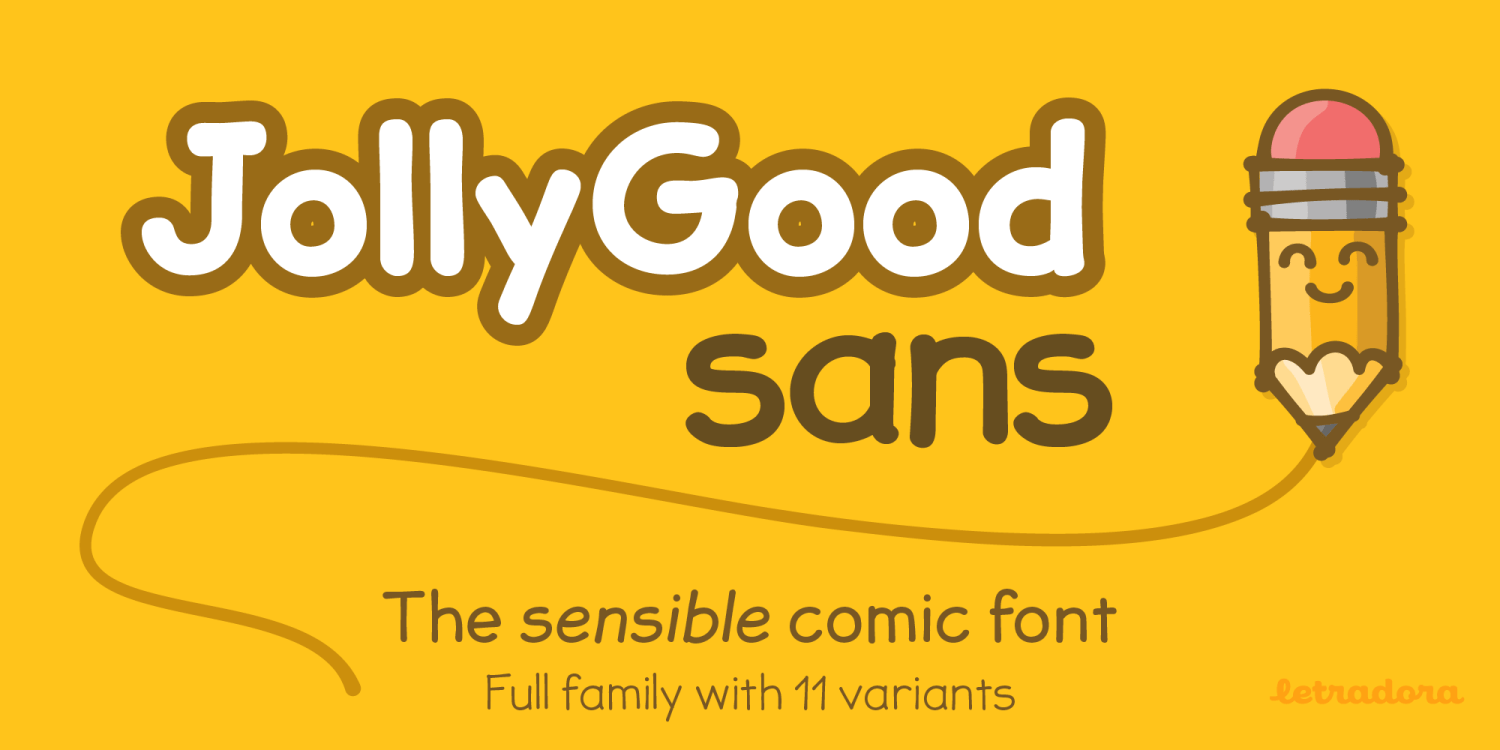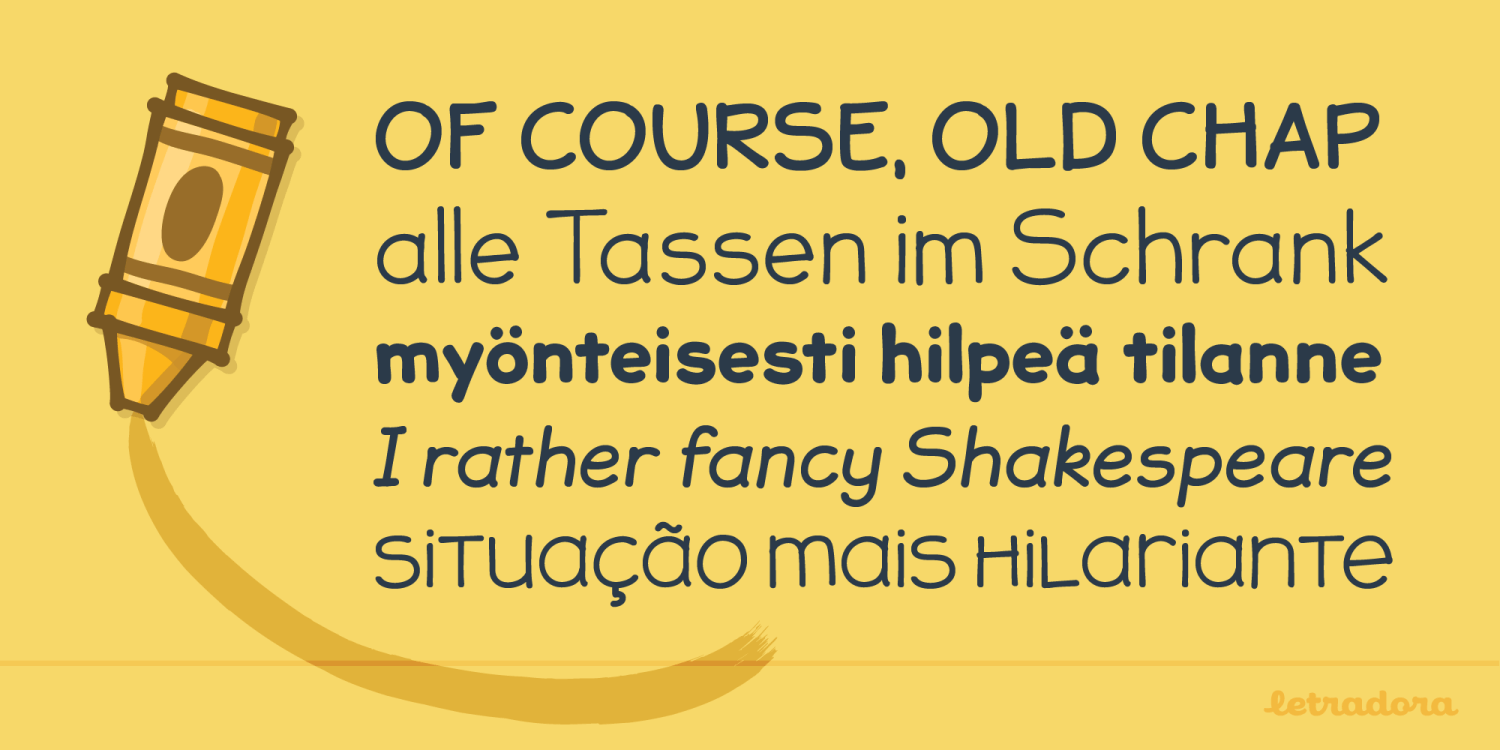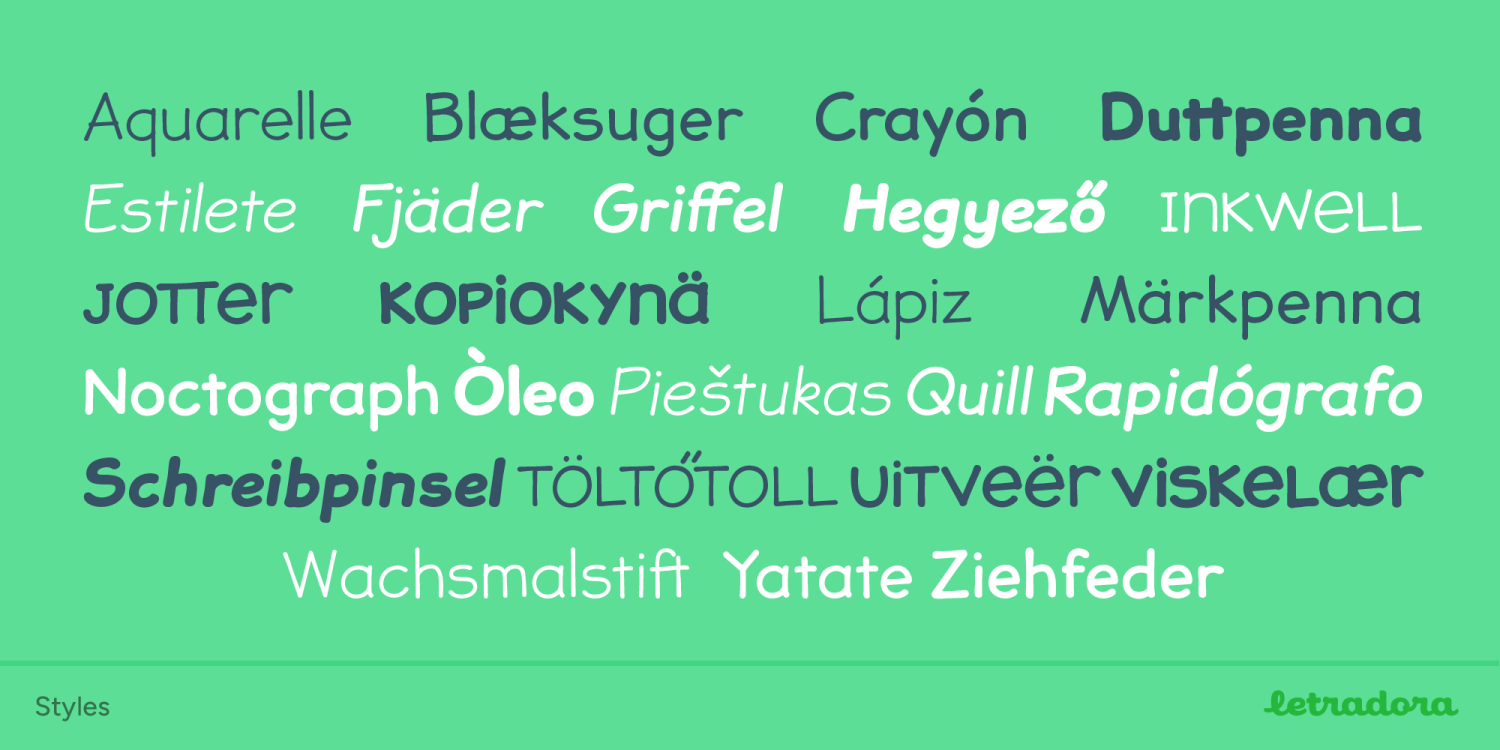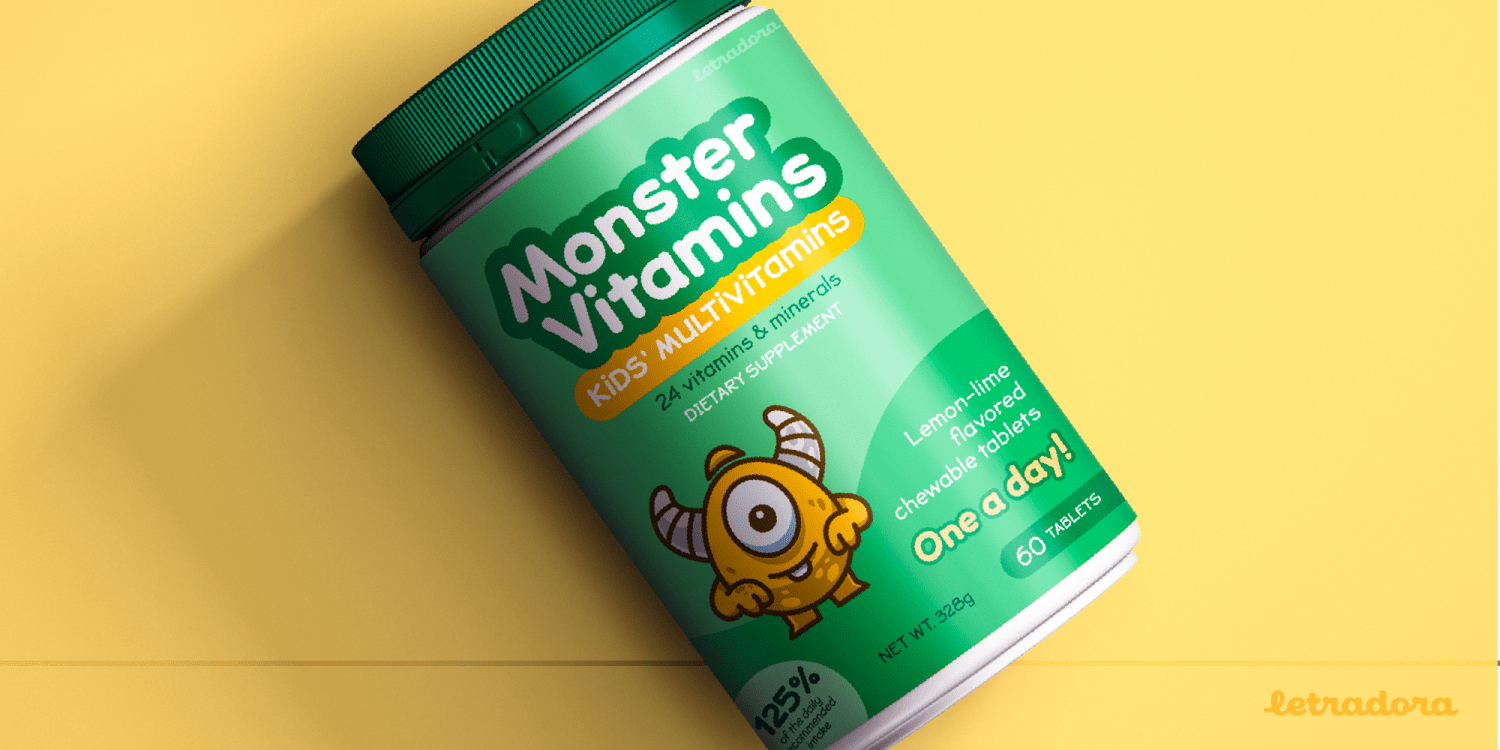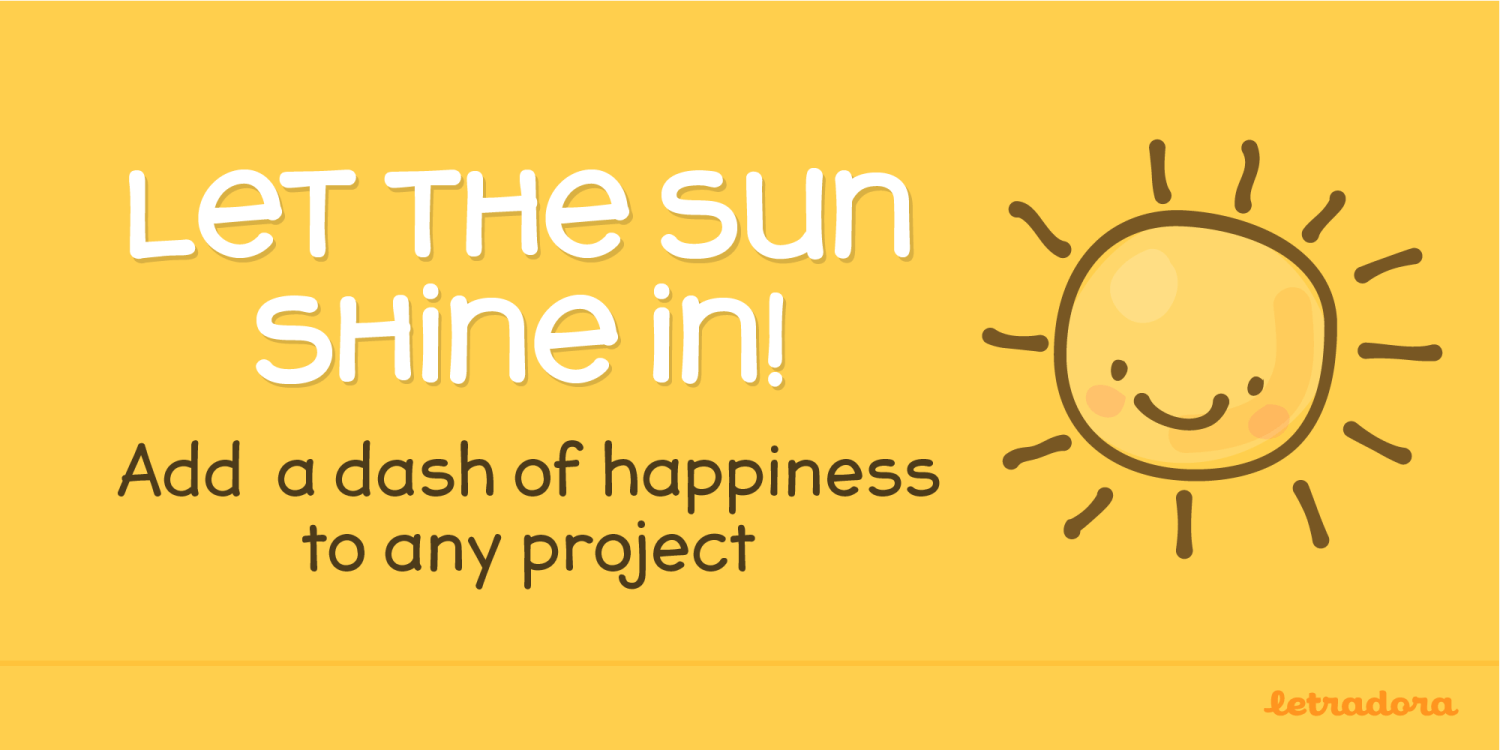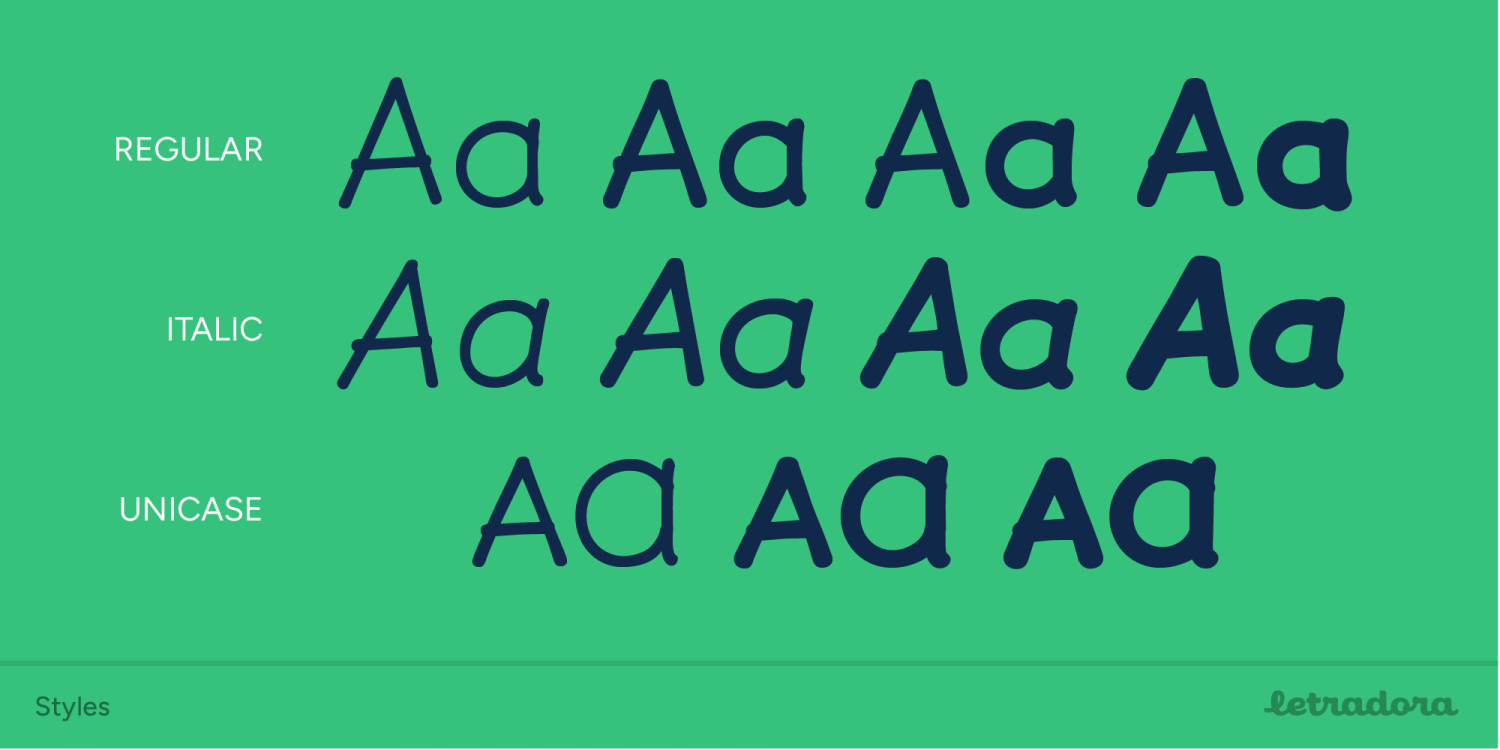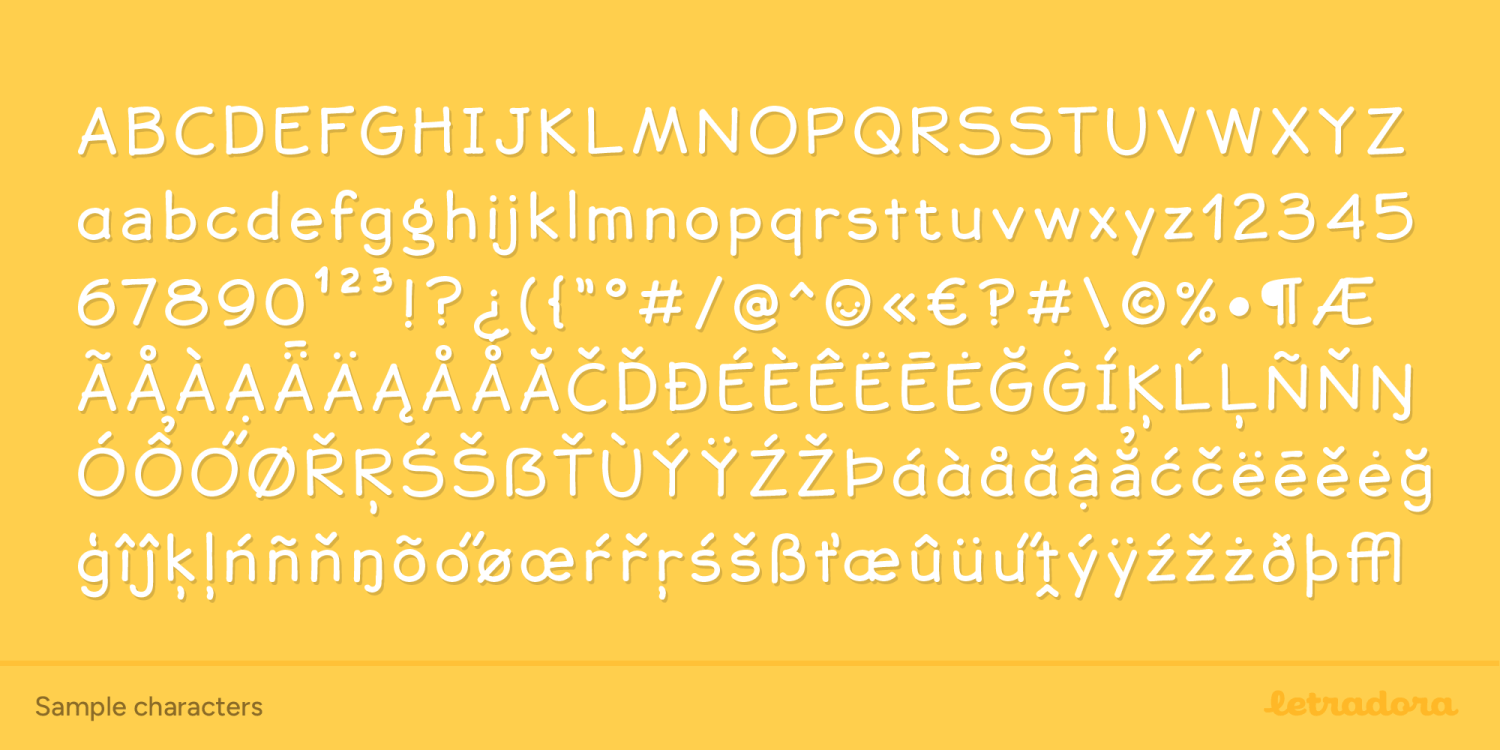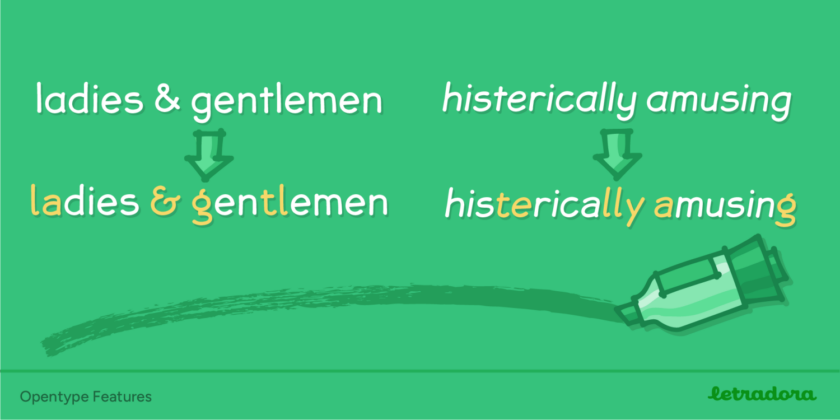
Jolly Good Sans
About Jolly Good Sans
Finally, a serious alternative to that other comic font. After years of mocking the font that shall not be named, I decided to create an alternative. I wanted to keep the fun feel and the comic book roots, but have a more polished look. The result? JollyGood,…